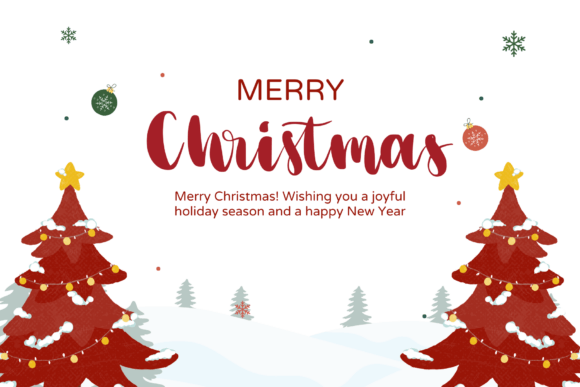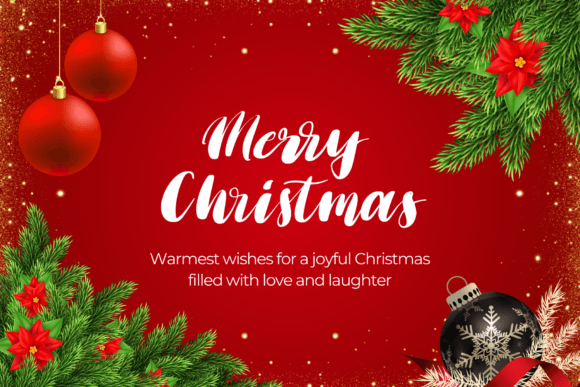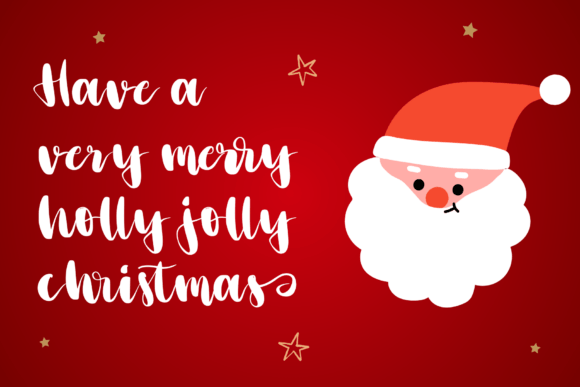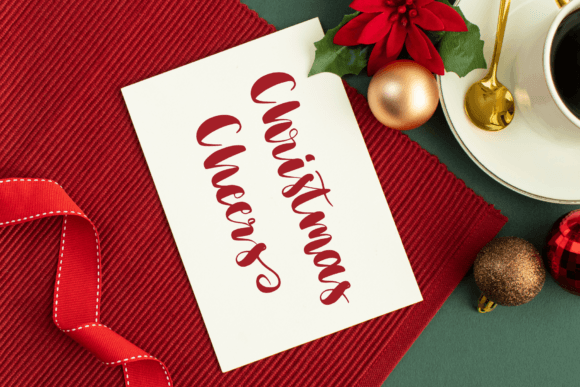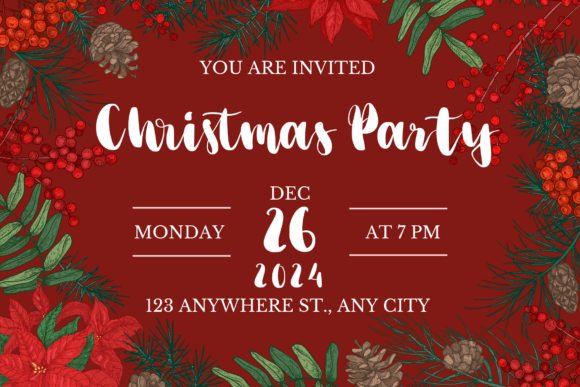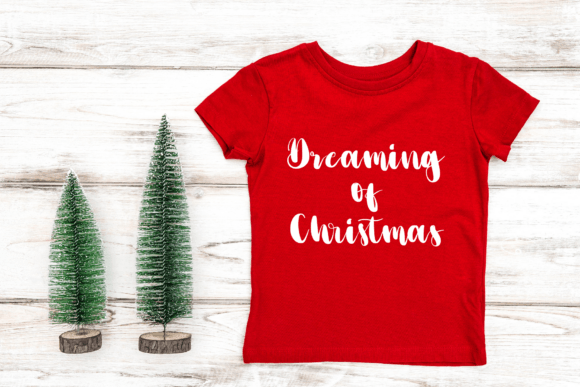
Introduction to Christmas Bloom Font
Introducing Christmas Bloom, a versatile and whimsically charming font that marries the merriment of Christmas and the joy of the New Year.
While its name nods towards the holiday season, its attractive and adaptable nature allows it to span across various themes Woven with a unique, adorable and organic essence, Christmas Bloom exudes a feel-good vibe that captures the viewerโs attention.
Key Features of Christmas Bloom Font